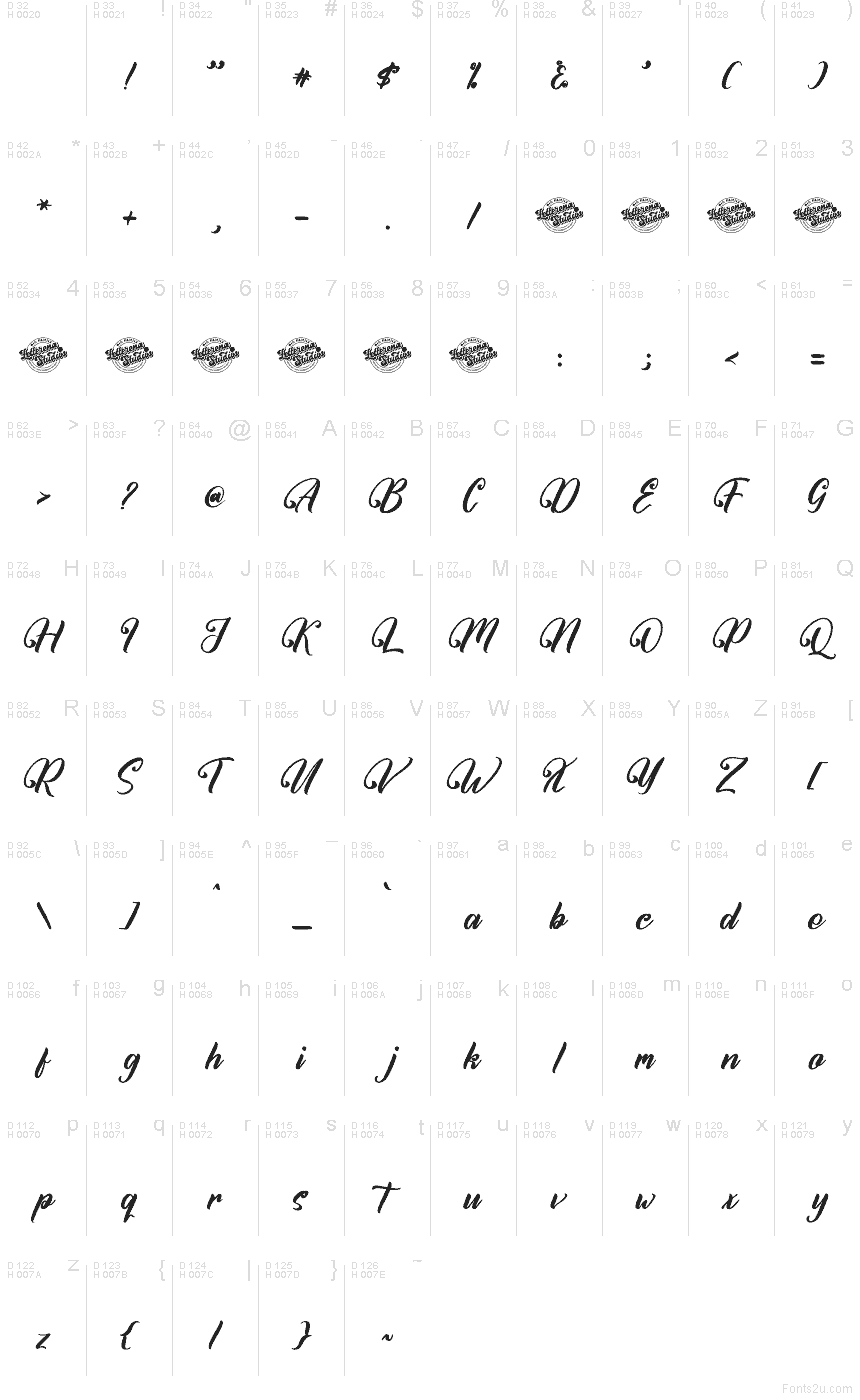
Qentyson Humberta DEMO VERSION
Qentyson Humberta font by Letterena Studios is a free handwritten script typeface with the polish of custom calligraphy and the ease of a ready-to-use font. Its flowing strokes feel like wet ink pulled across smooth paper, with gentle curves, soft loops, and a lively slant that adds movement without getting messy. The letters link together in a confident, even rhythm, giving logos, names, and short phrases an effortlessly stylish signature look.
Using Qentyson Humberta font, you can elevate wedding invitations, save-the-dates, boutique logos, product packaging, social media posts, and quote graphics with a romantic, handwritten touch. This free font shines when used large for names or headlines, then paired with a clean sans serif for supporting text to keep everything readable and chic.